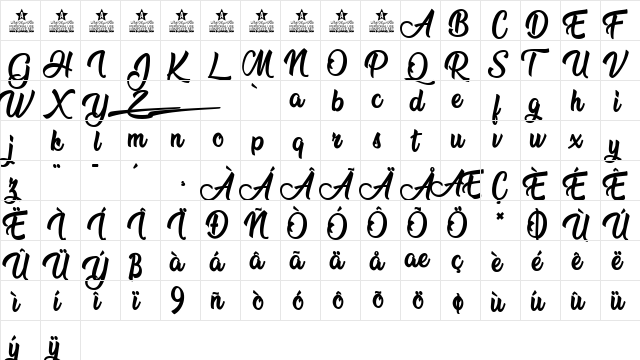
Flower Power Personal Use Regular Font Preview
Flower Power Personal Use Regular
Flower Power Personal Use Regular Font Details
| Foundry | Billy Argel |
| Designer | Billy argel |
Design Context for Flower Power Personal Use Typeface
Flower Power Personal Use brings high-energy athletic personality to the page — its confident, muscular forms are built for impact.
A natural choice for gym brands, fantasy sports, jersey lettering, and action-driven headlines.
Font Pairing: Use alongside a condensed or geometric sans for supporting copy — keep the pairing bold, functional, and free of ornament.
Pro Tip: Use Flower Power Personal Use in all-caps headlines where its athletic energy can fully express itself. Pair with a solid, simple sans for supporting text.